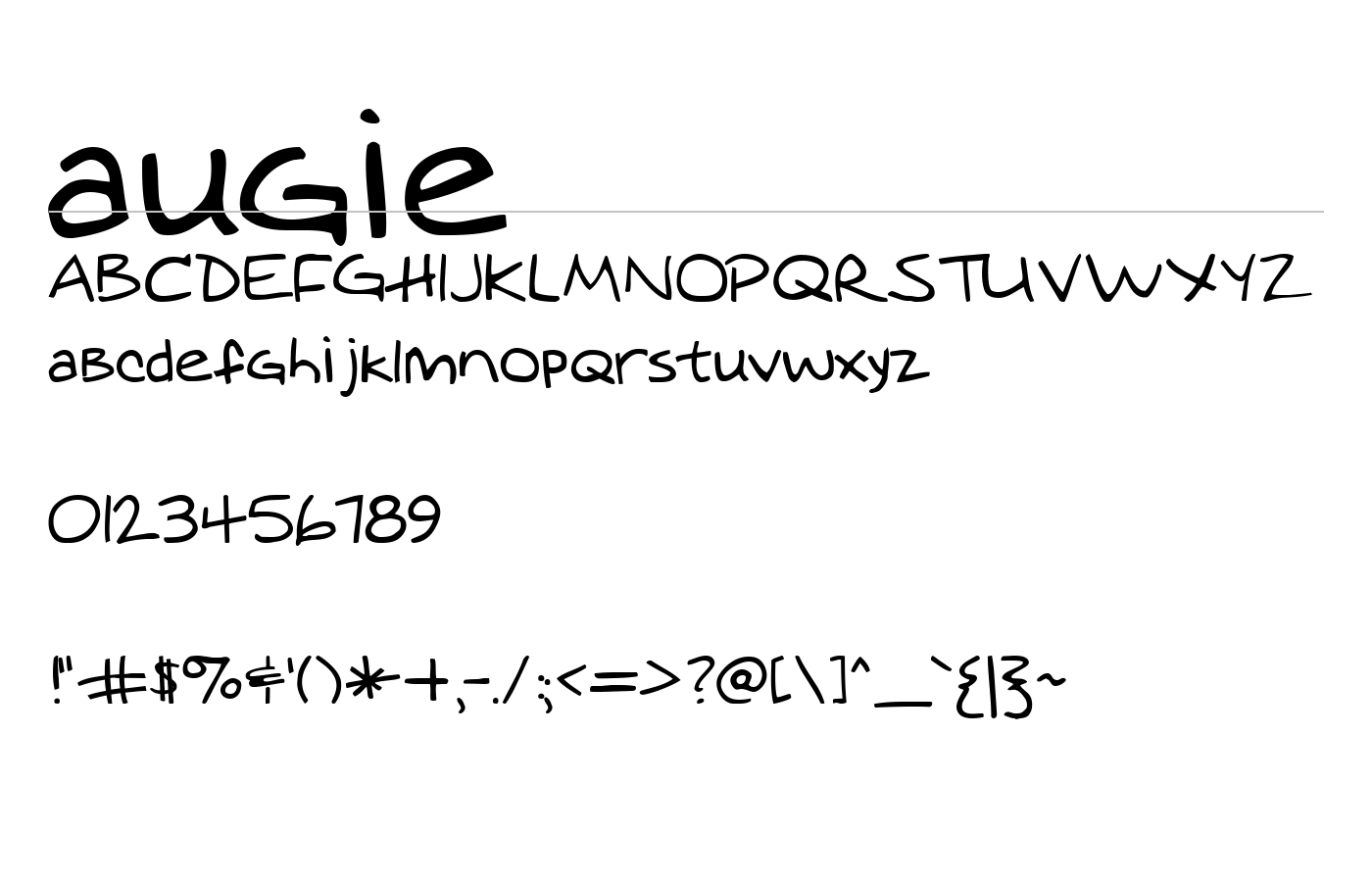
Augie is a playful, casual handwritten sans serif font with a lively, informal feel. Its slightly irregular strokes and rounded shapes give it a friendly and approachable personality, making it ideal for creative projects, children’s materials, and fun branding that aims to feel personal and inviting. This font works best in headlines, logos, and packaging where a relaxed, human touch is desired.
augie Font